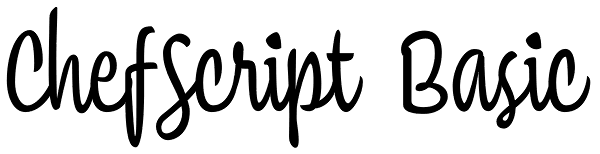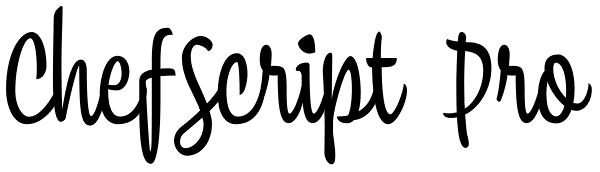
ChefScript
Chef Script is an experimental font designed by Carlos Fabian Camargo G. Its fantasy design contains 1463 glyphs to compose words, phrases and short messages on small and large sizes. The idea was born in a sketchbook that was perfected again by...